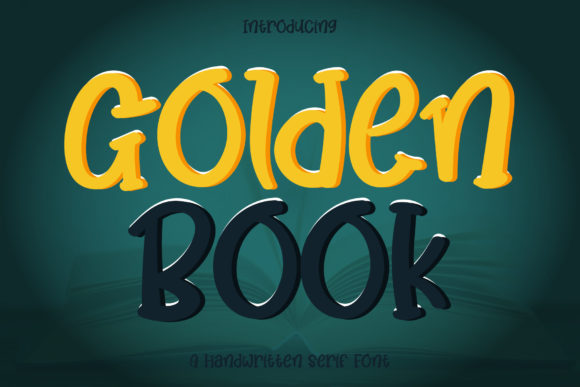
Unleash your creativity with Golden Book Font, a captivating display font designed to make your designs shine. This extraordinary font exudes a unique personality, combining cool, quirky, and chic elements that will leave a lasting impression.
Golden Book Font is meticulously crafted to elevate your lettering tattoos, adding an artistic touch that speaks volumes. Its distinctive style complements a wide range of tattoos, from delicate line work to bold, statement pieces. Whether you're an experienced tattoo artist or just starting, this font will become your go-to choice for creating truly remarkable body art.
Step into a world of possibilities with Golden Book Font. Its versatility extends beyond tattoos, making it an excellent choice for logos, branding, posters, invitations, and any project that demands an unforgettable visual impact. Trust in its ability to transform your creative vision into a tangible masterpiece.
With Golden Book Font, you're not just downloading a font; you're embracing an artistic movement. Its unique charm and character will captivate your audience, leaving them in awe of your creations. Experience the joy of turning ordinary designs into extraordinary works of art with Golden Book Font.
Don't settle for ordinary fonts. Embrace the extraordinary with Golden Book Font. Its endless possibilities will ignite your creativity and leave you eager to explore the boundless realm of design. Dive into the world of Golden Book Font today and unlock the true potential of your artistic expression.